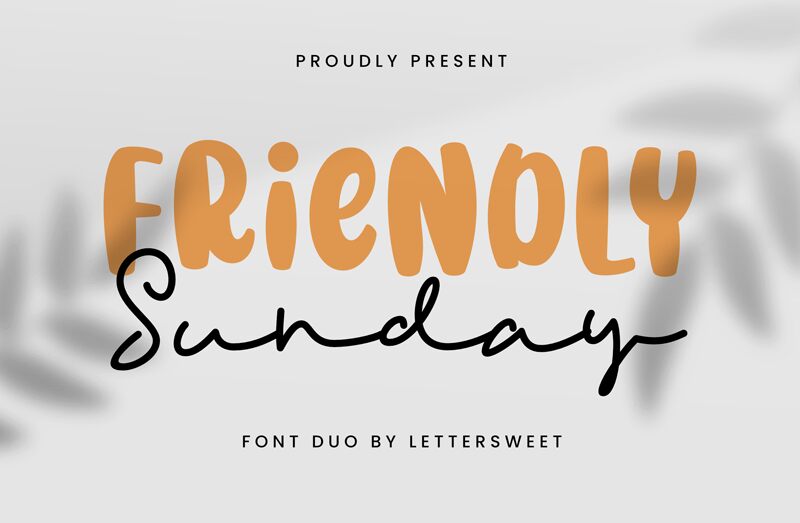
Friendly Sunday Sans Regular
FRIENDLY SUNDAY SANS font from the Friendly Sunday Sans family is a delightful display typeface that exudes warmth and charm. Its bold, condensed form offers a striking visual presence, perfect for grabbing attention in any design context. The cartoonish style invites playfulness, making it ideal for projects aimed at children or those seeking a lighthearted touch.
Whether utilized in branding, promotional materials, or whimsical invitations, this font effortlessly balances boldness with approachability. Its unique character makes it suitable for everyday applications where personality and fun are essential elements. Friendly Sunday Sans brings an enchanting flair to any creative endeavor, ensuring that your message stands out with joy and enthusiasm.